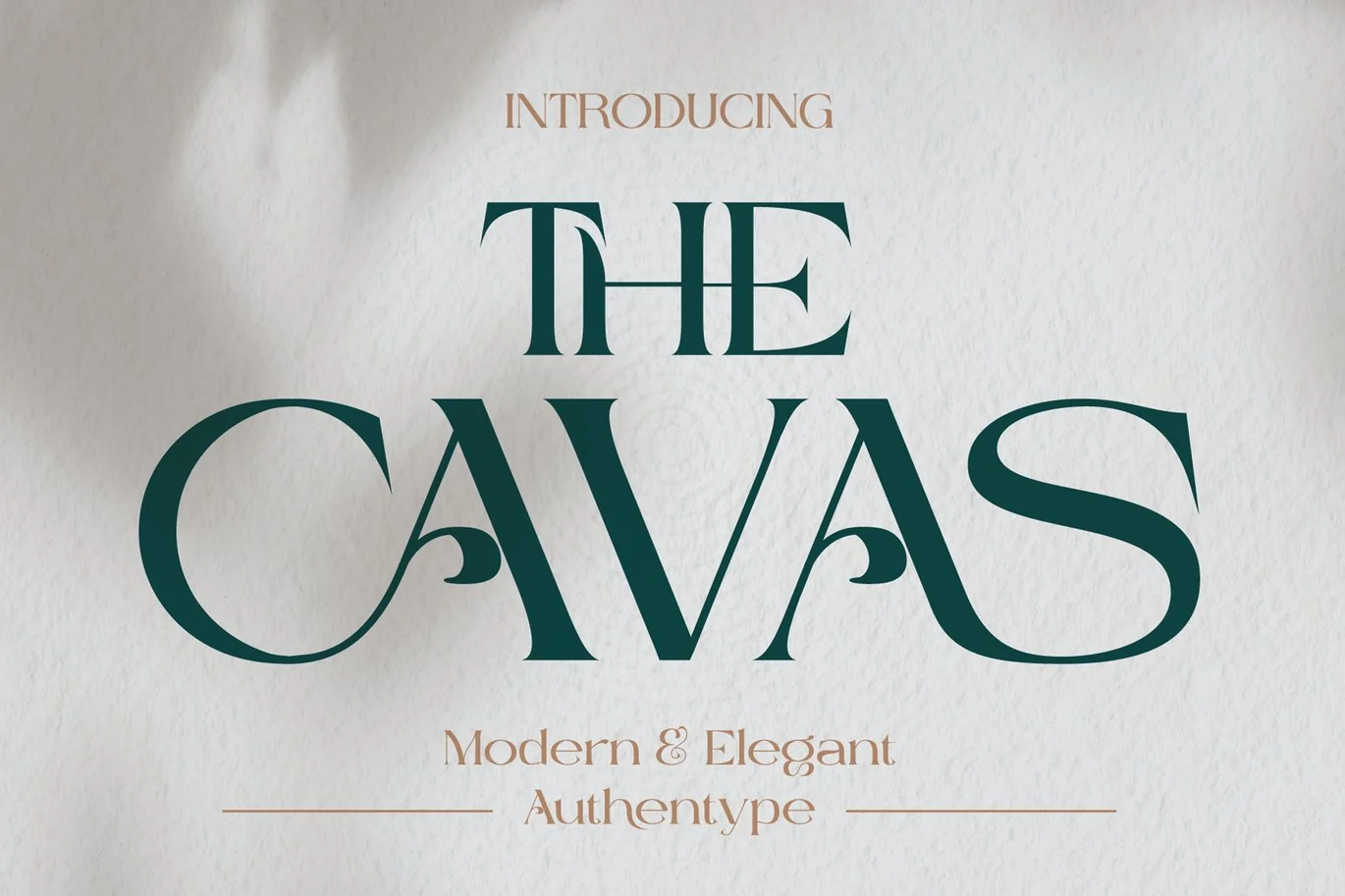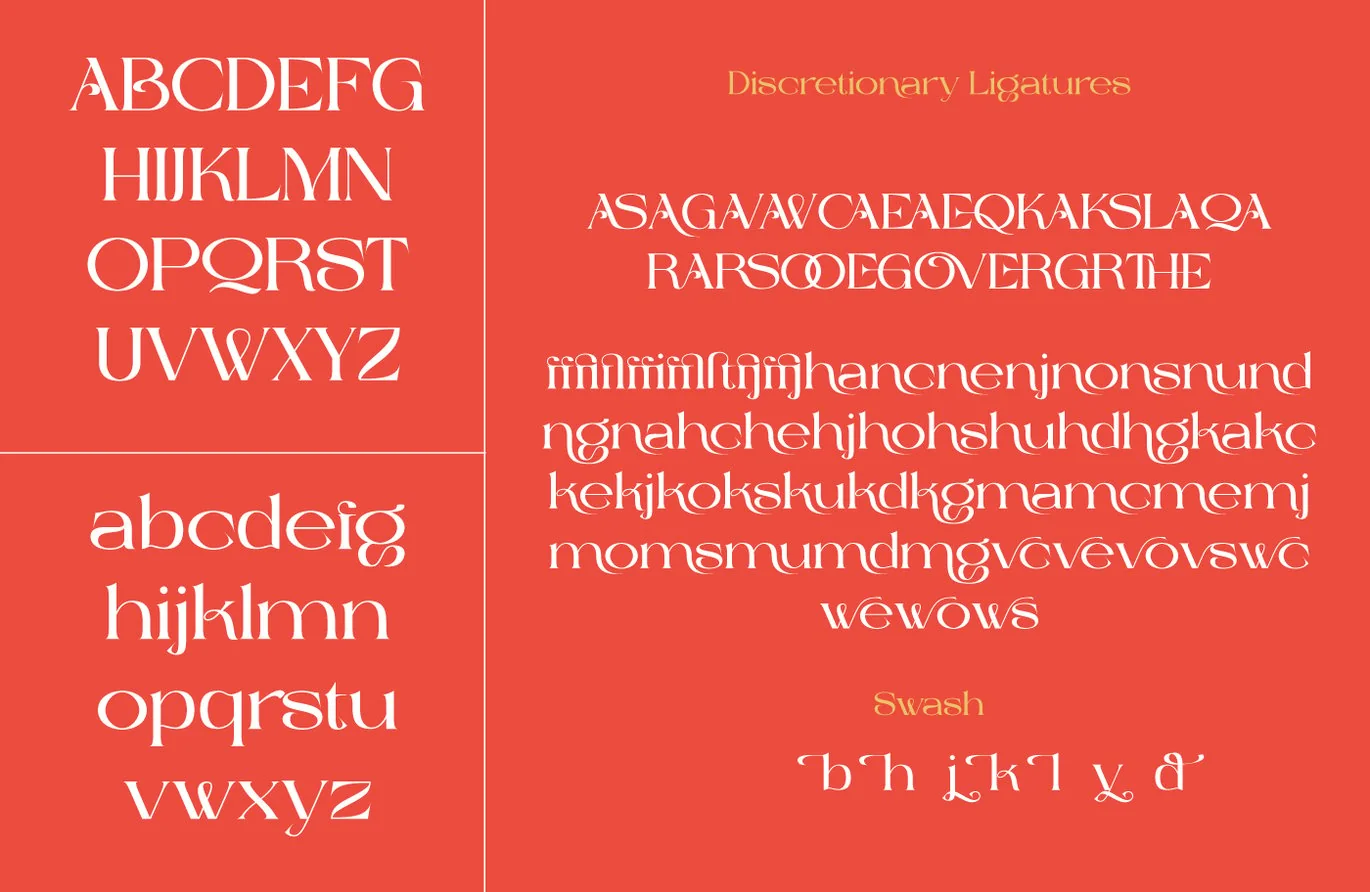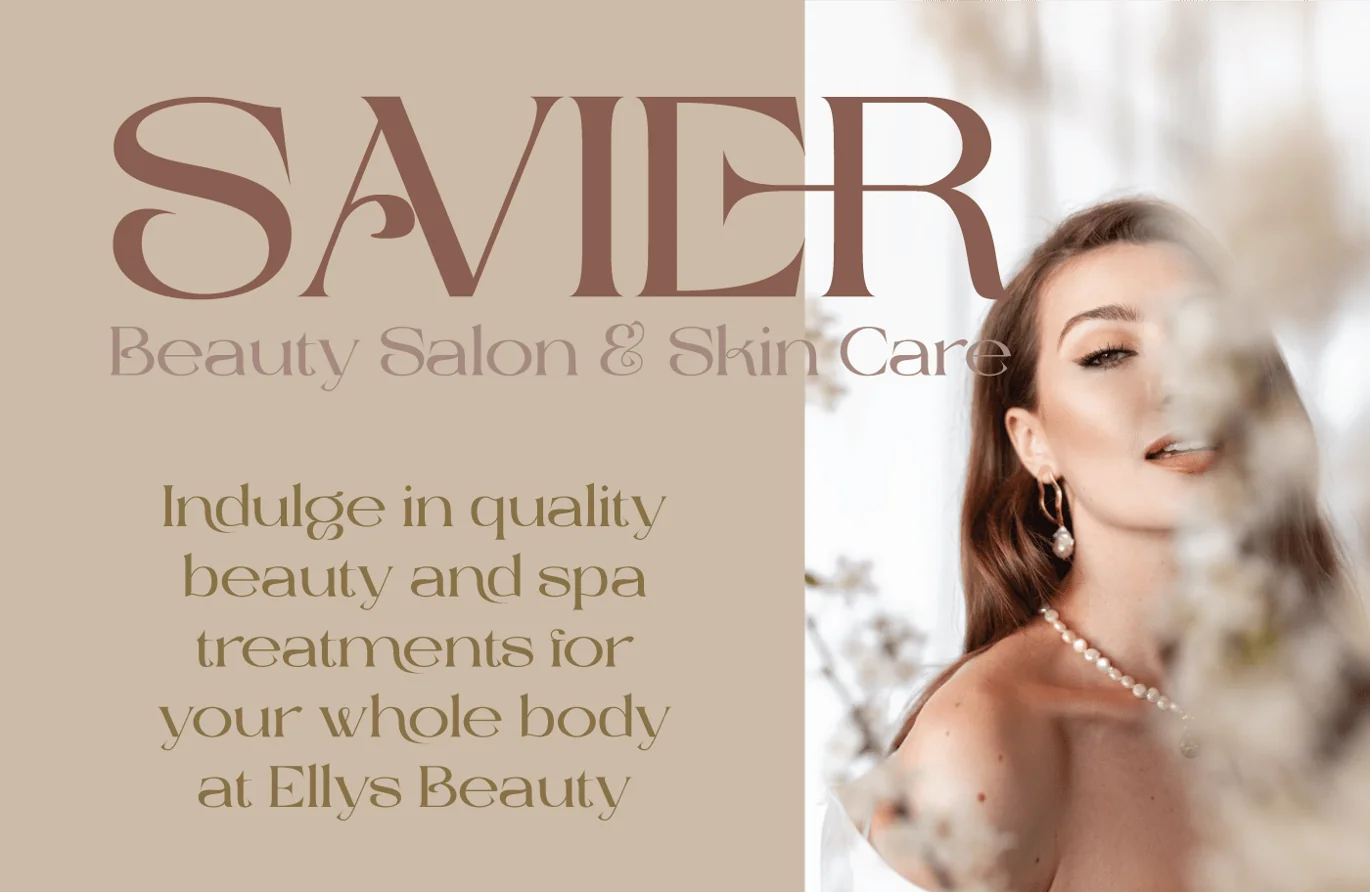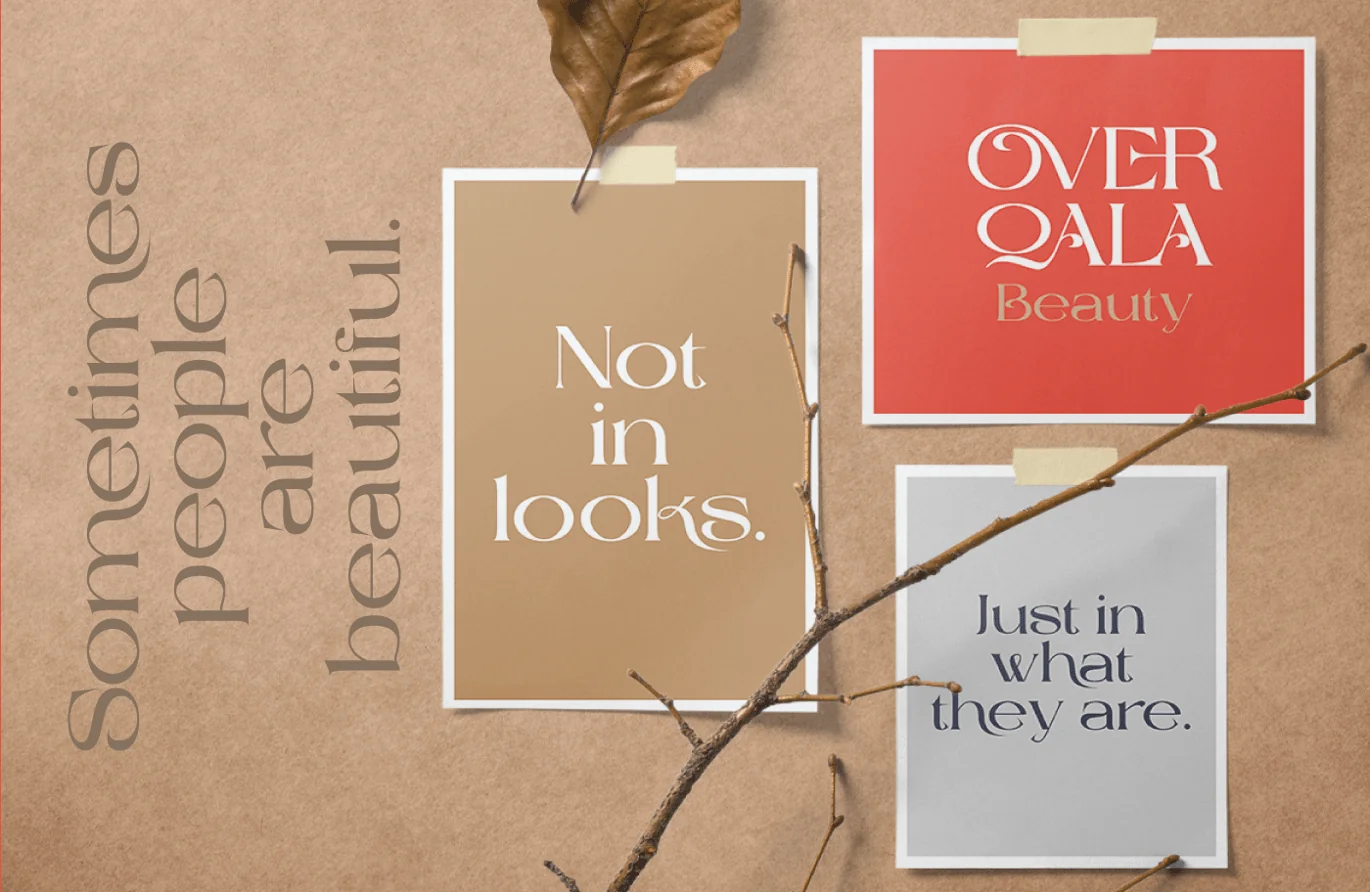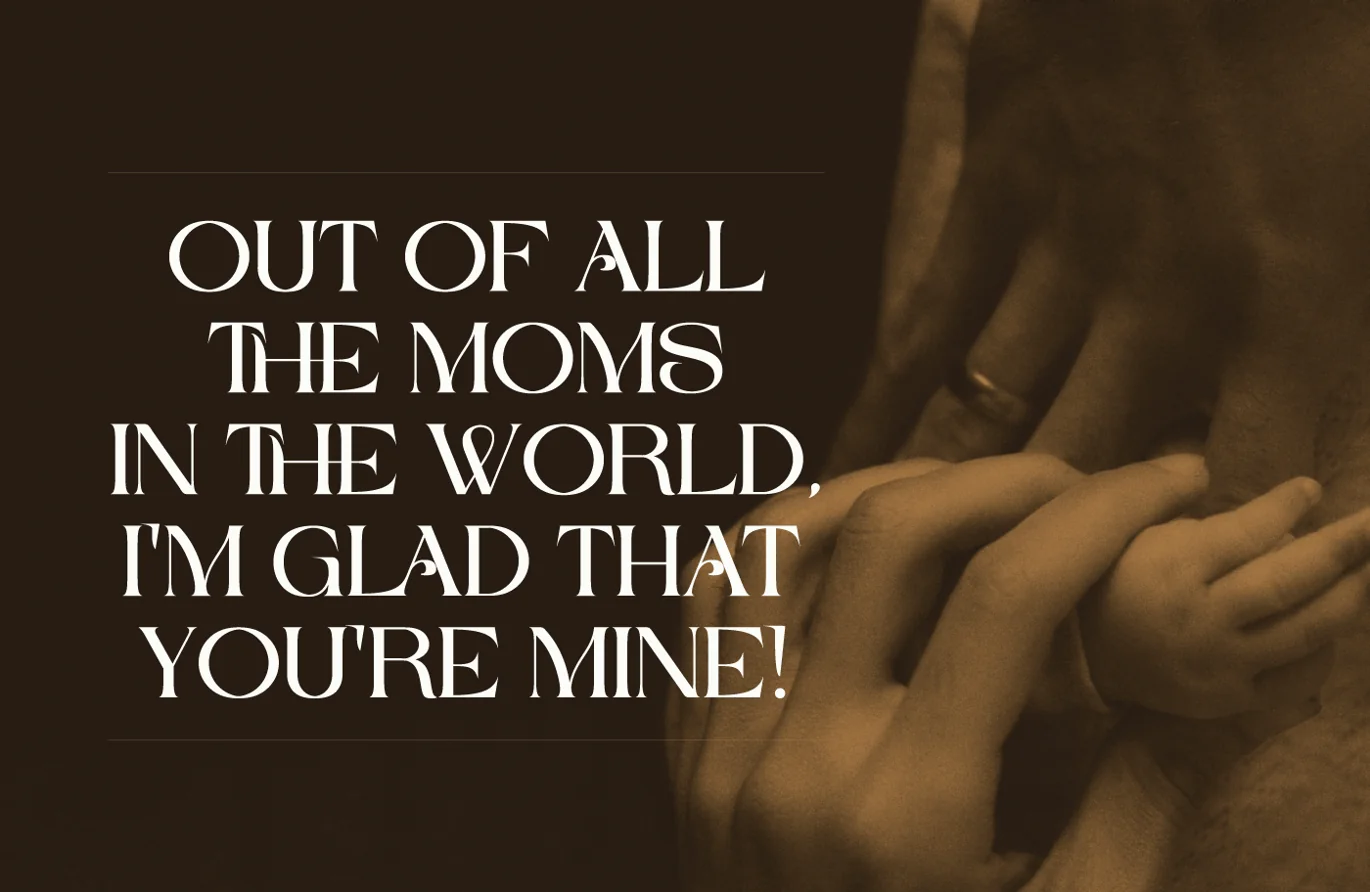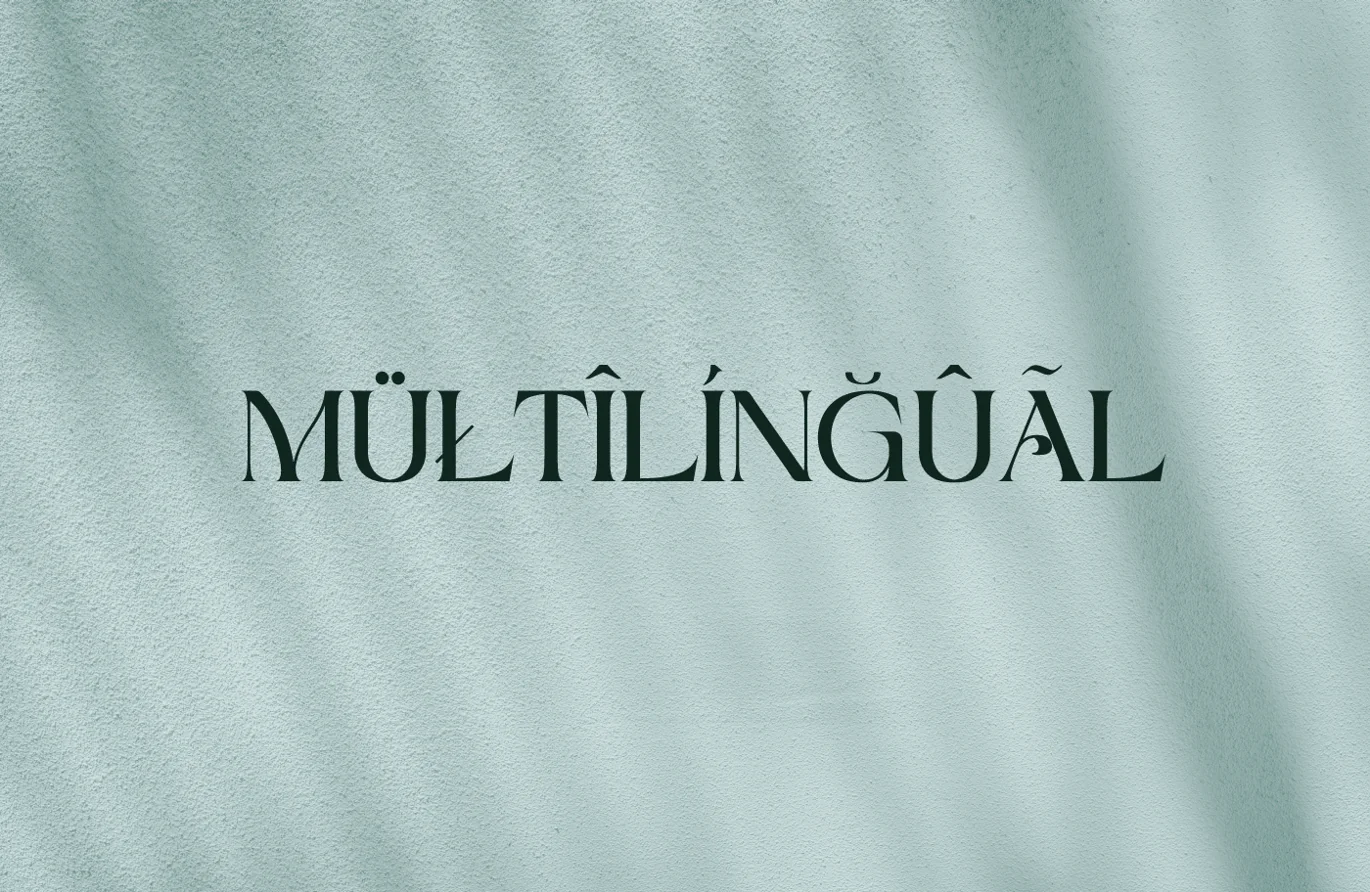
Cavas modern & elegant font
Cavas modern & elegant font with discretionary ligatures that give each word a different shape. Also contains a swash with an elegant, contrasting and clean, perfect for logo designs, posters and various types of promotional media.